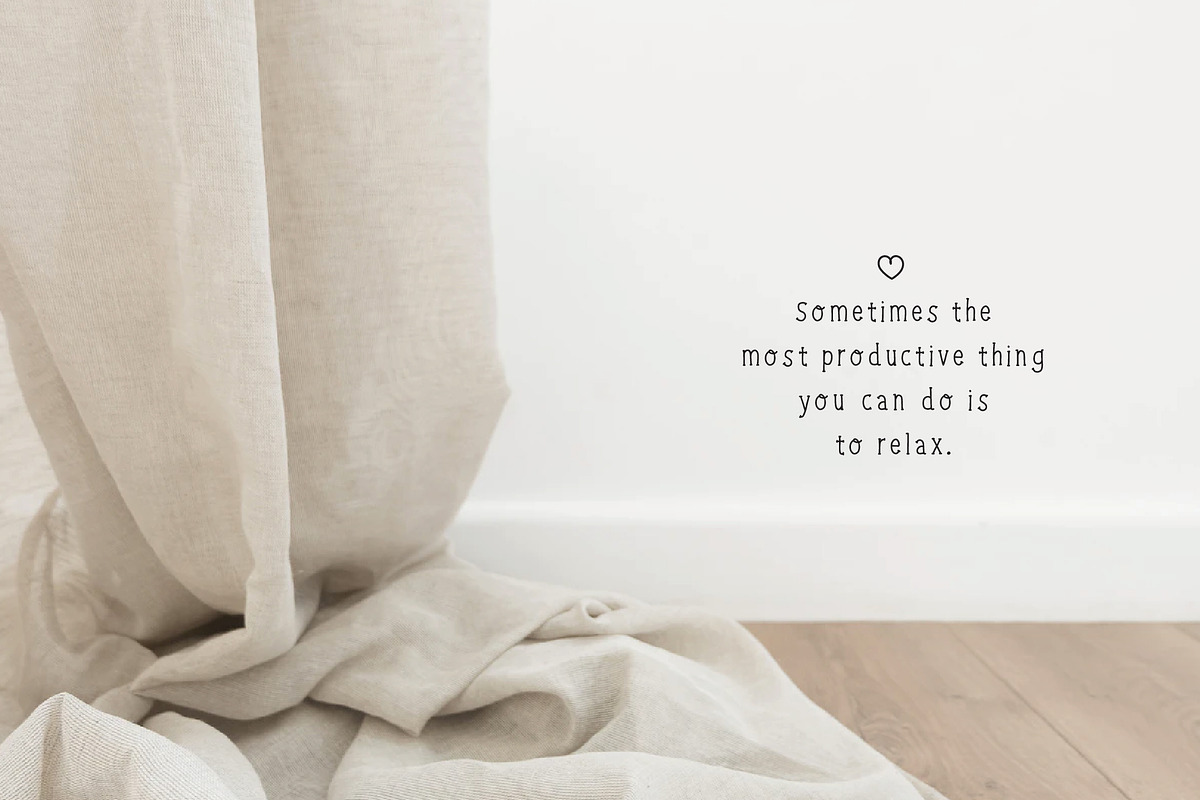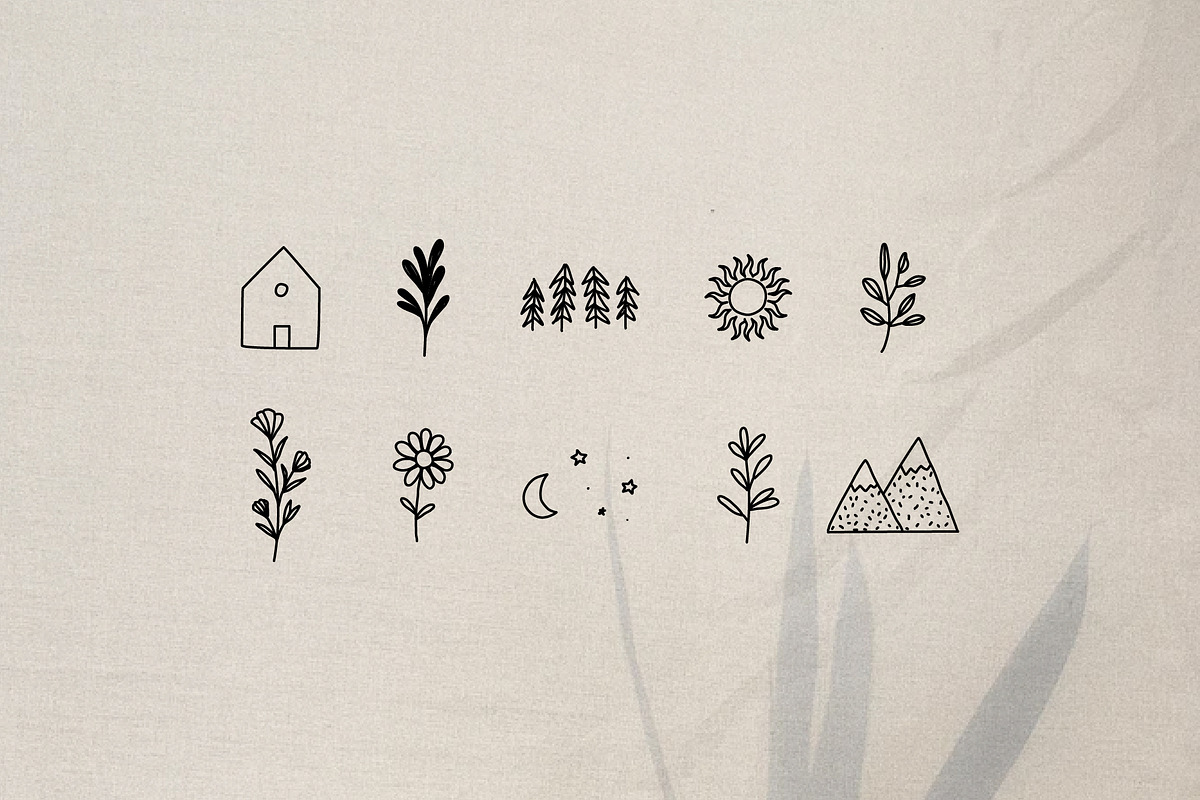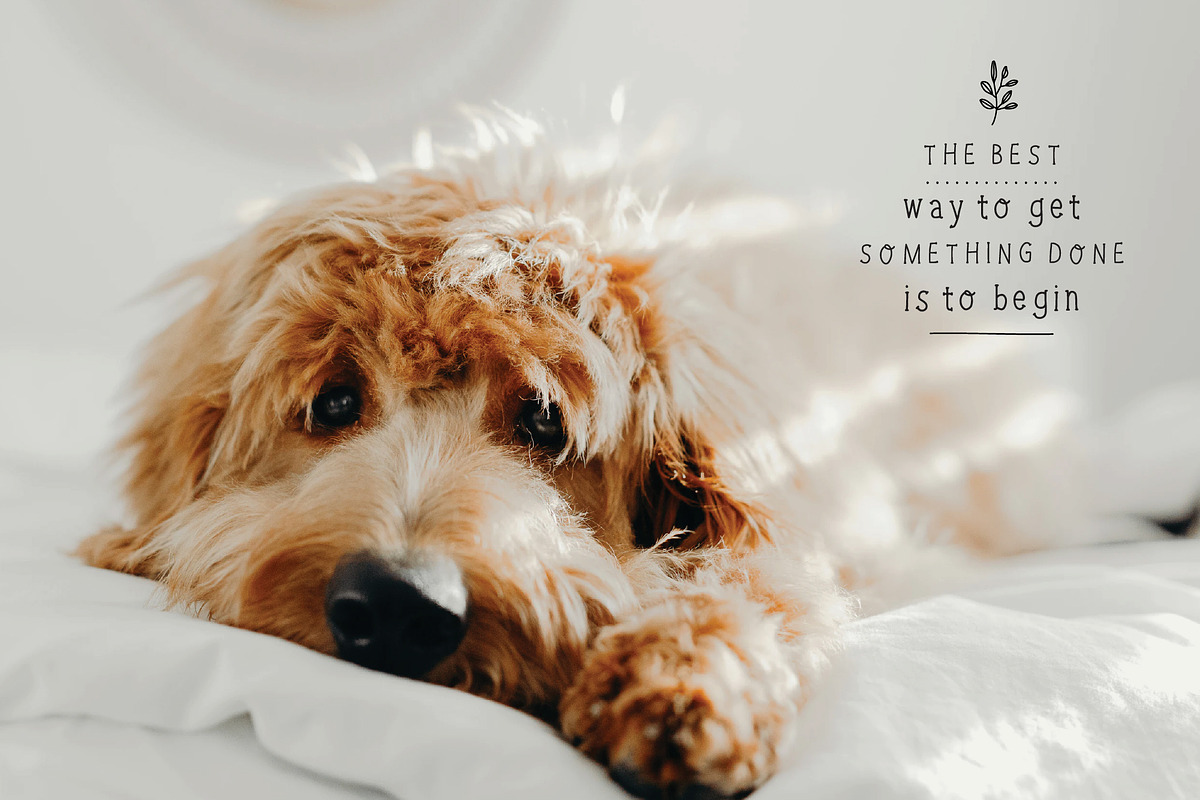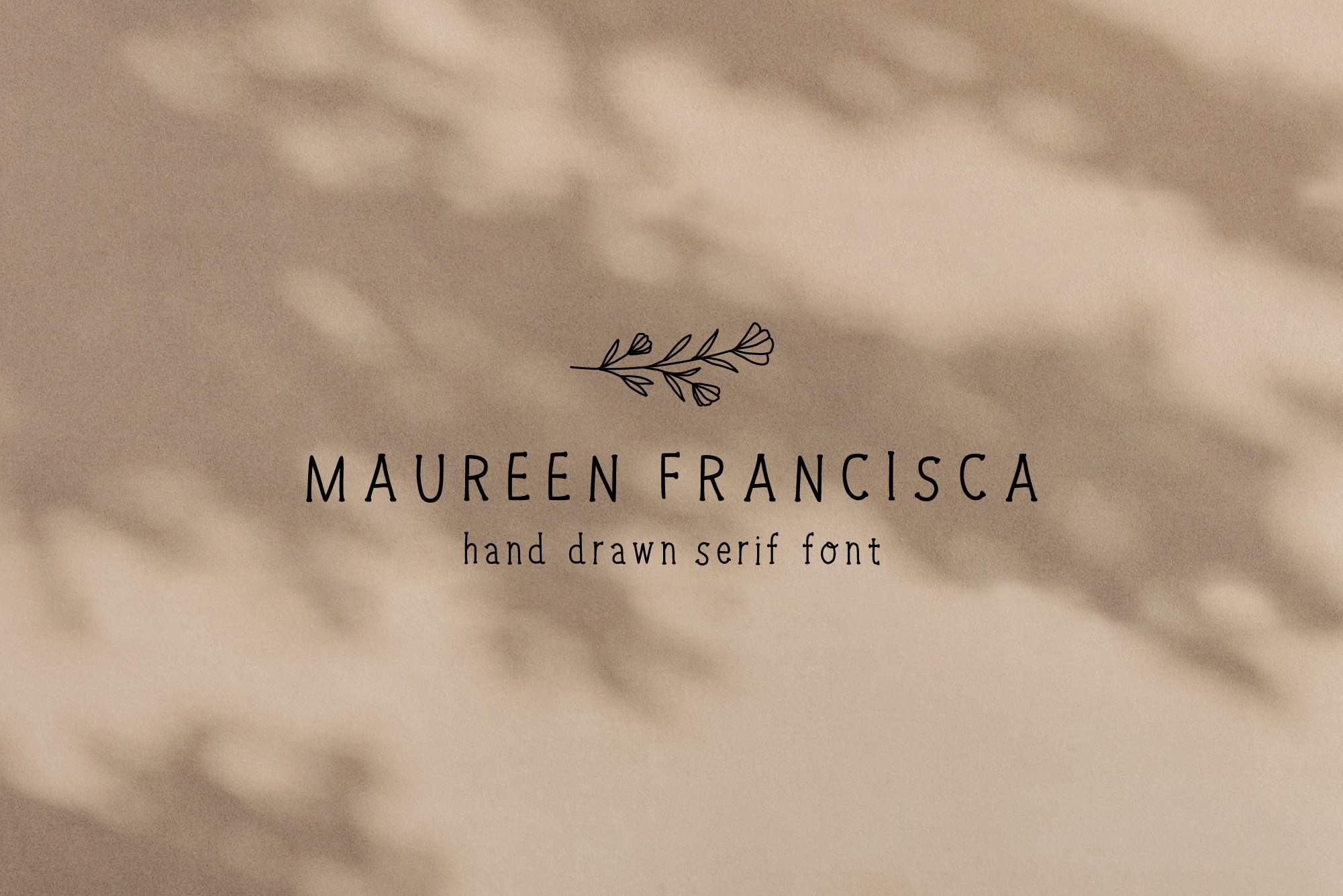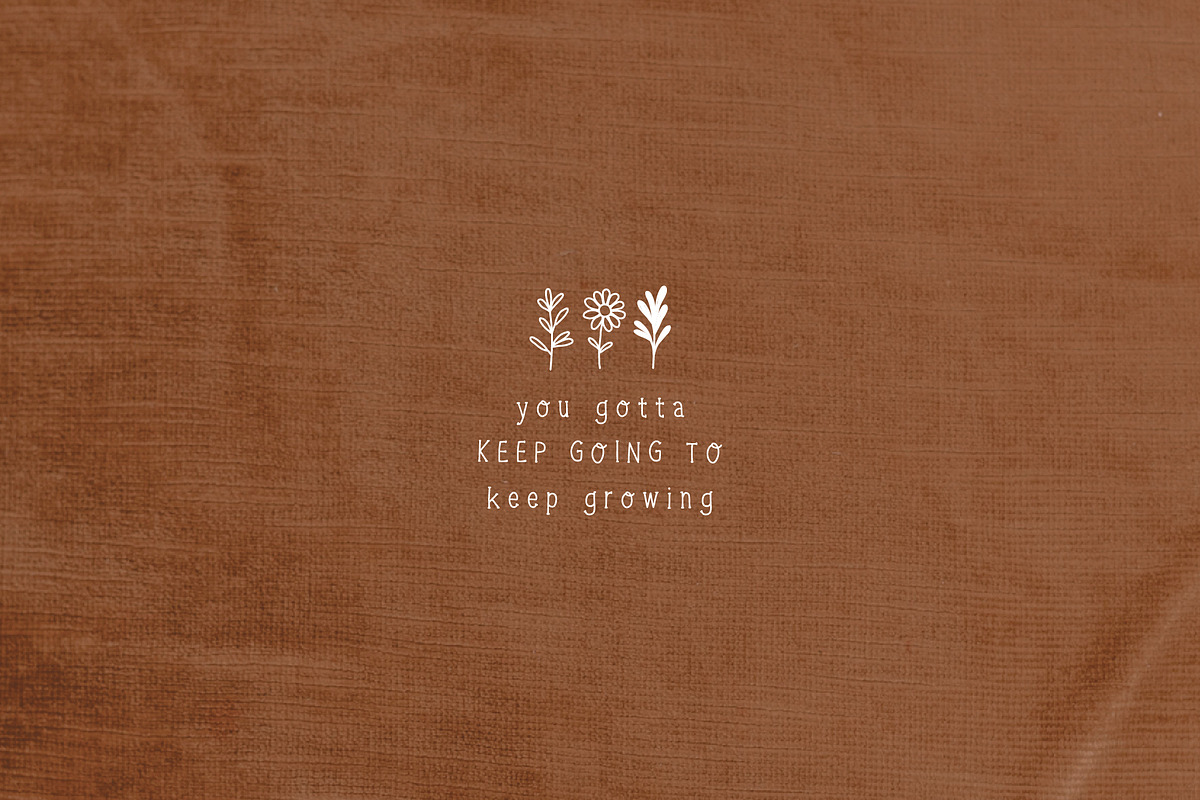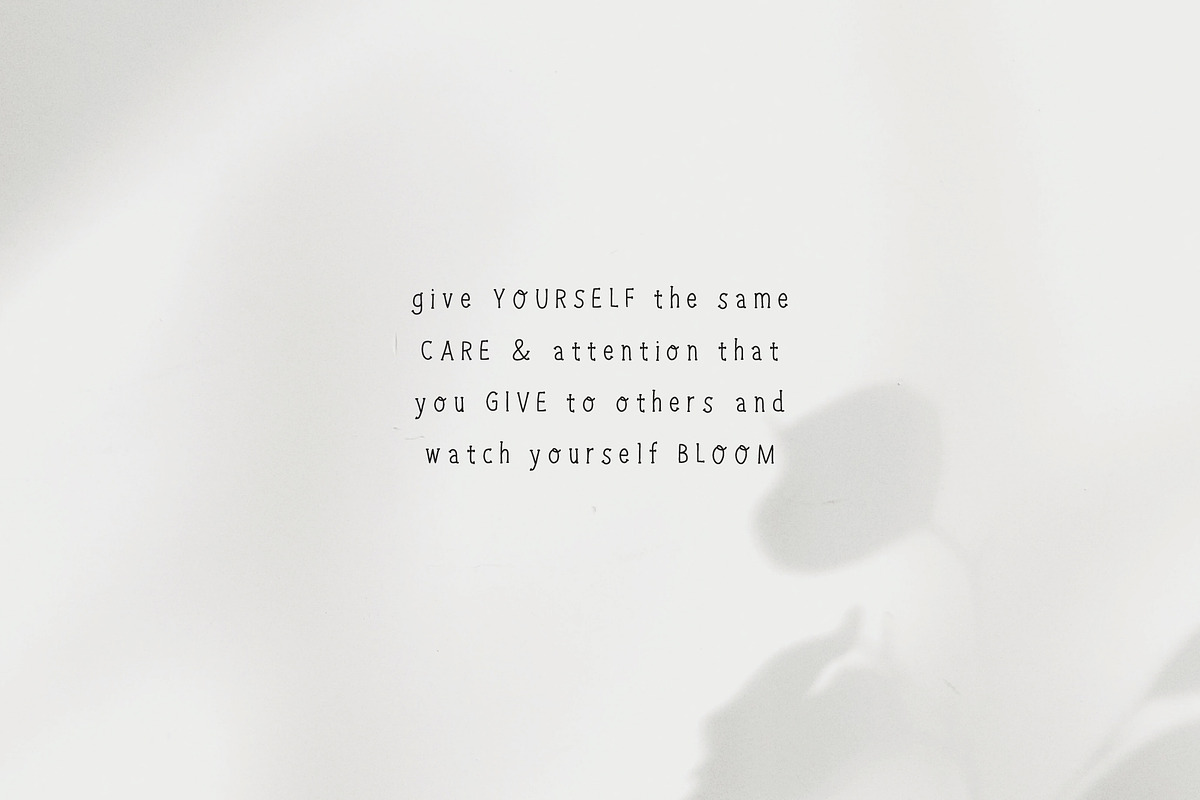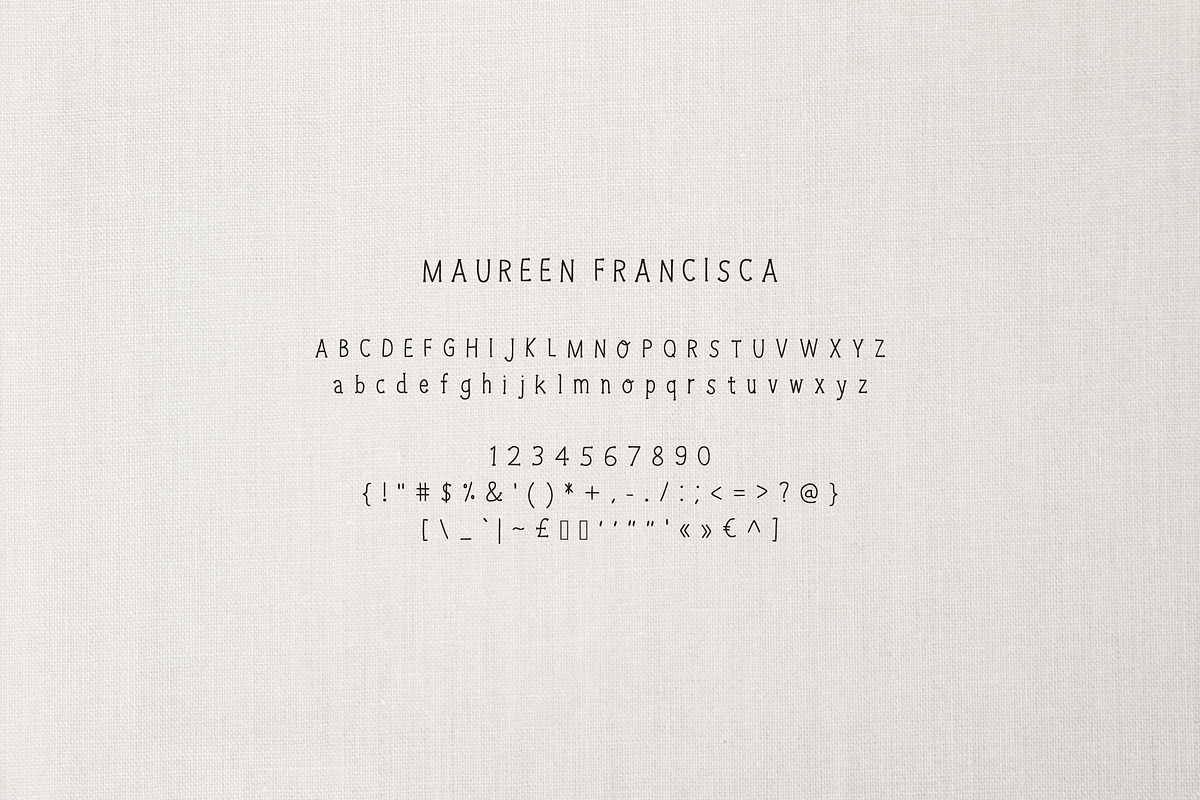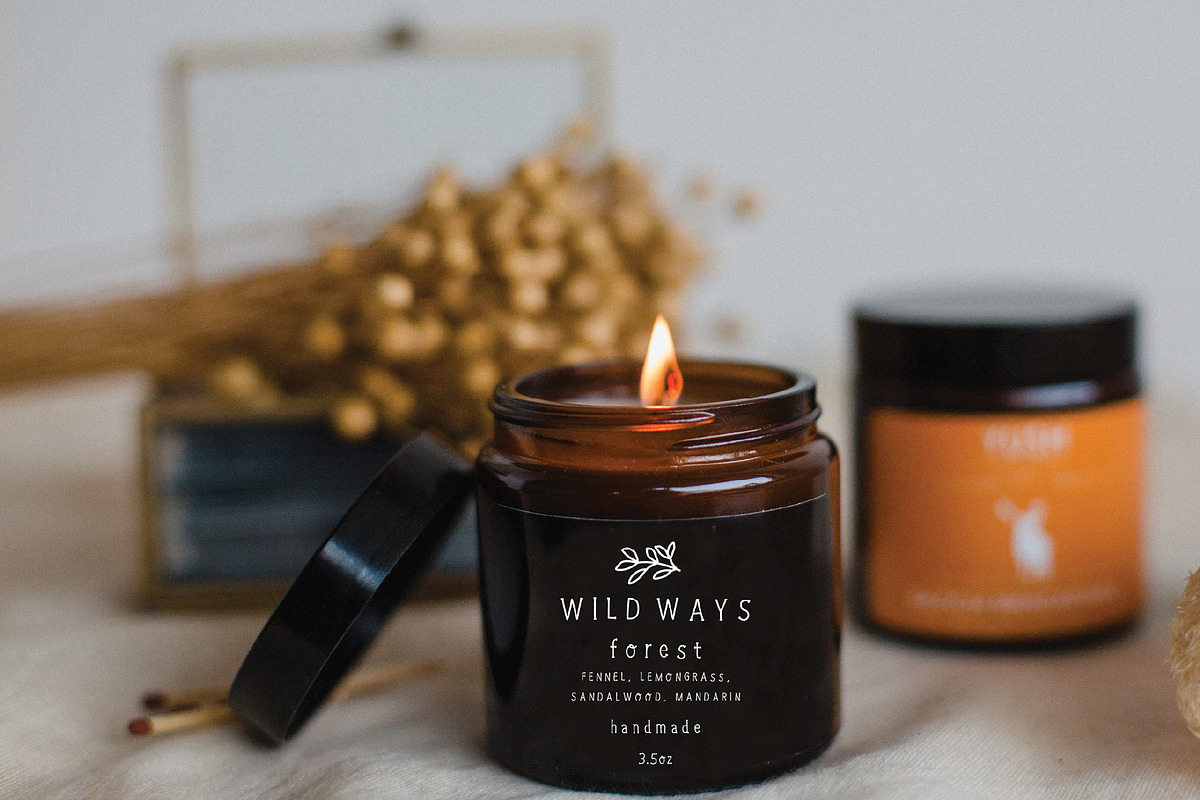
Hand Drawn Serif Font + Illustration
A brand new hand drawn serif font that I have been using a lot in my designs! The perfect font for your brand. Use it for a logo, business card and many other print materials. Use it to create your own "handwritten" Instagram posts or some packaging design.
This bundle includes a hand drawn font and 10 hand drawn illustrations.